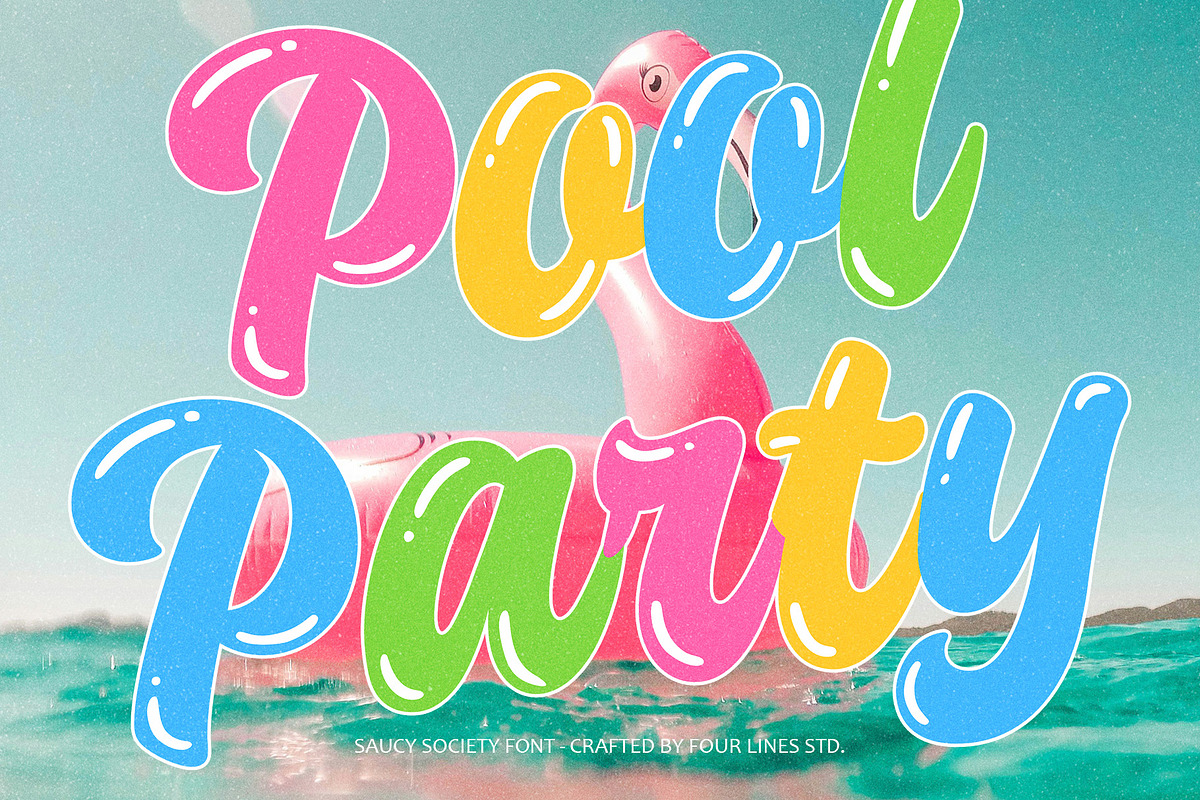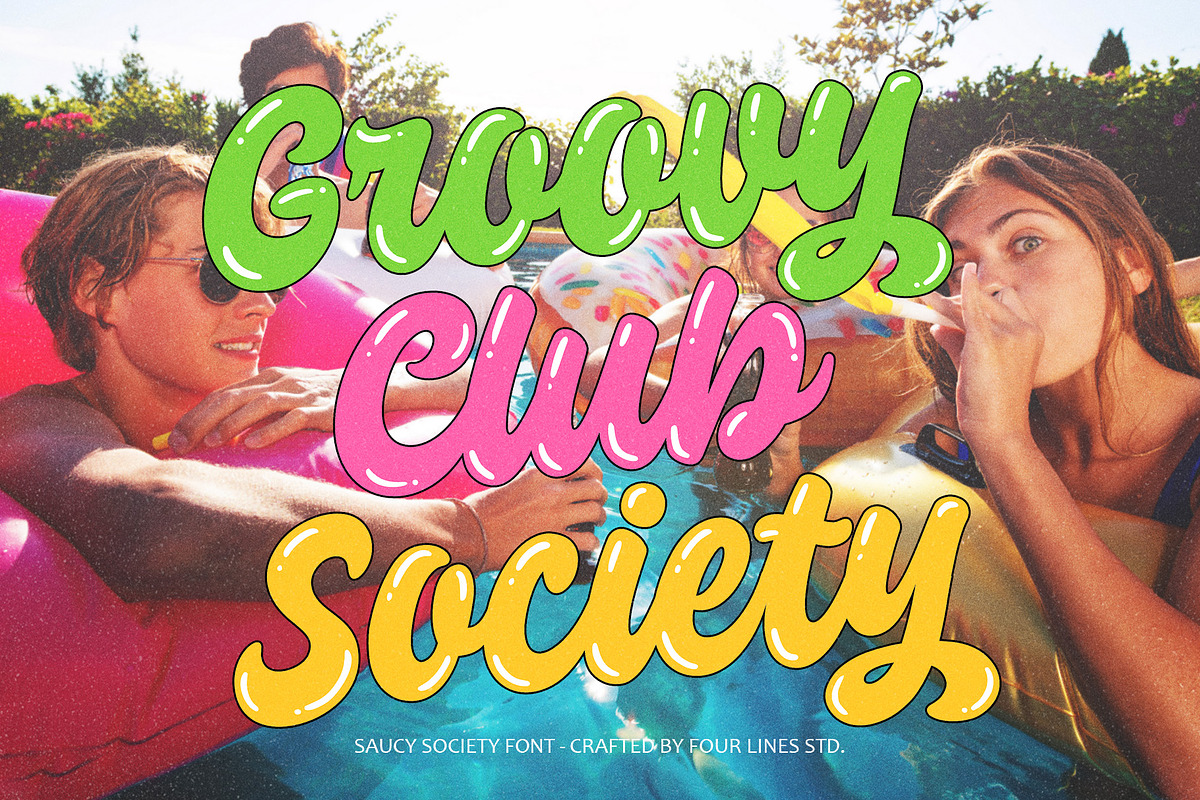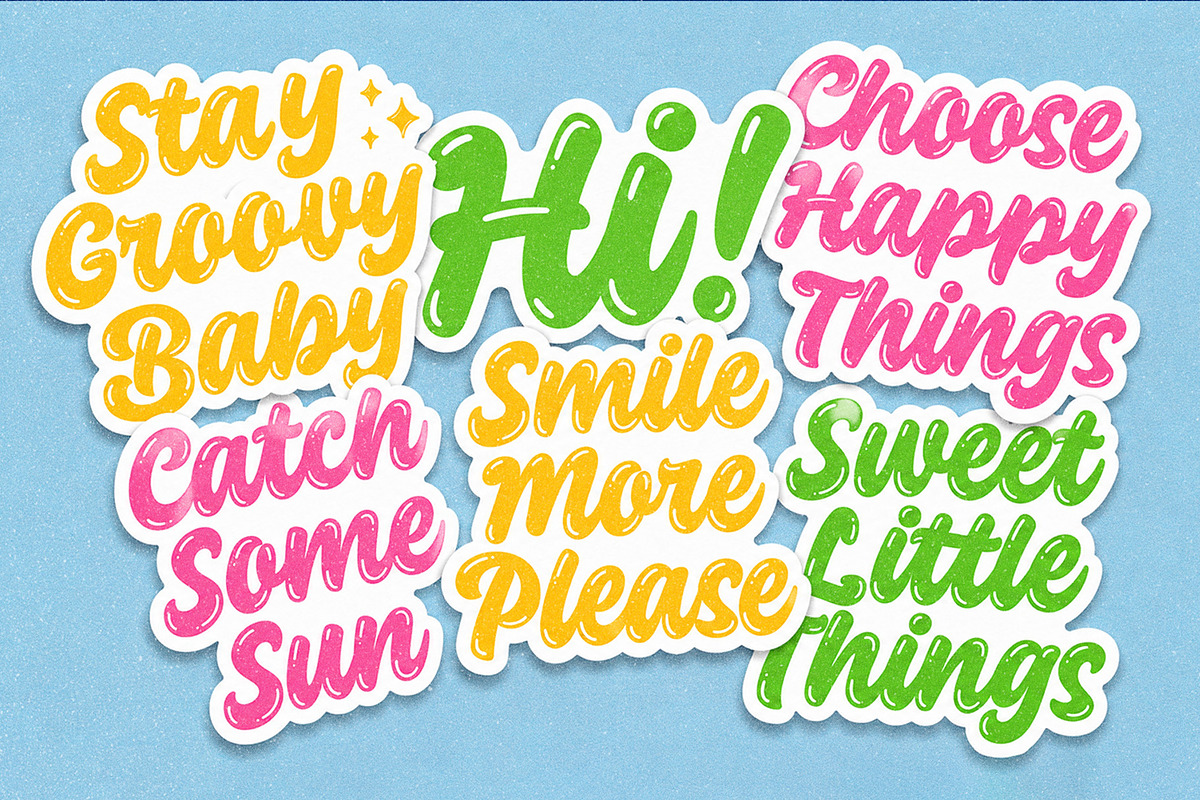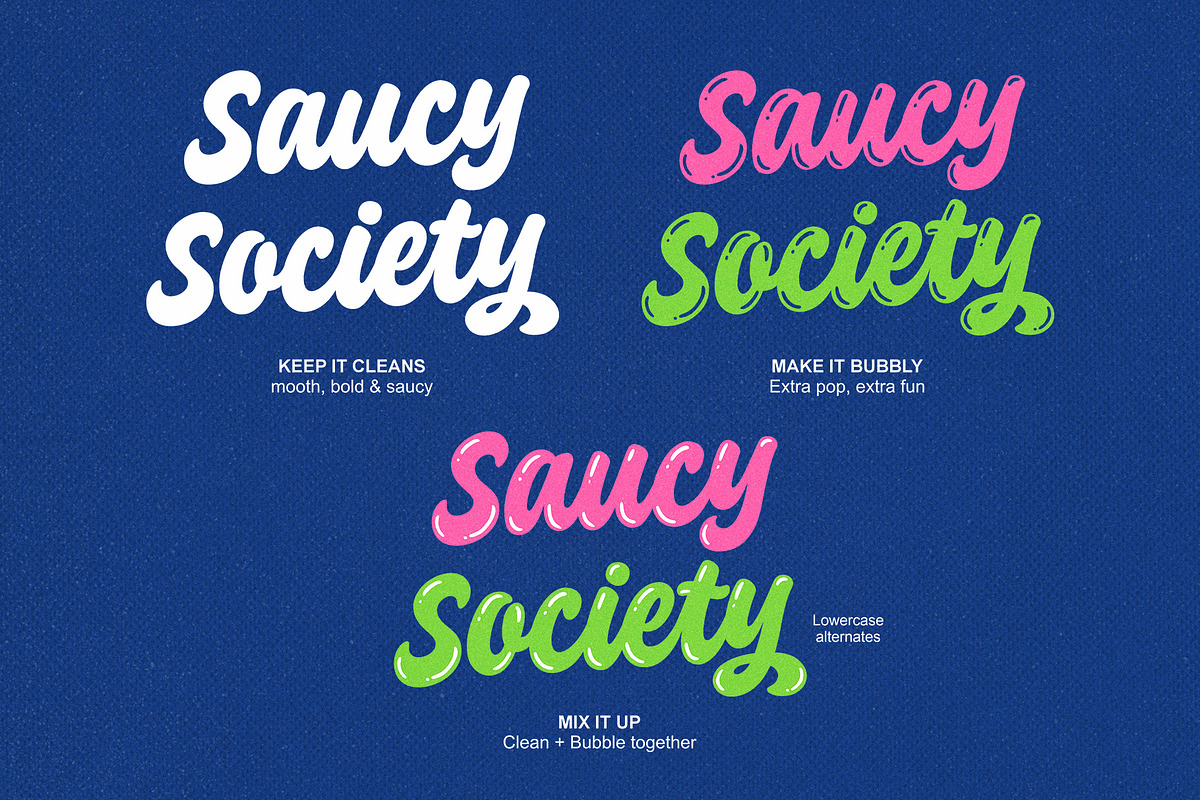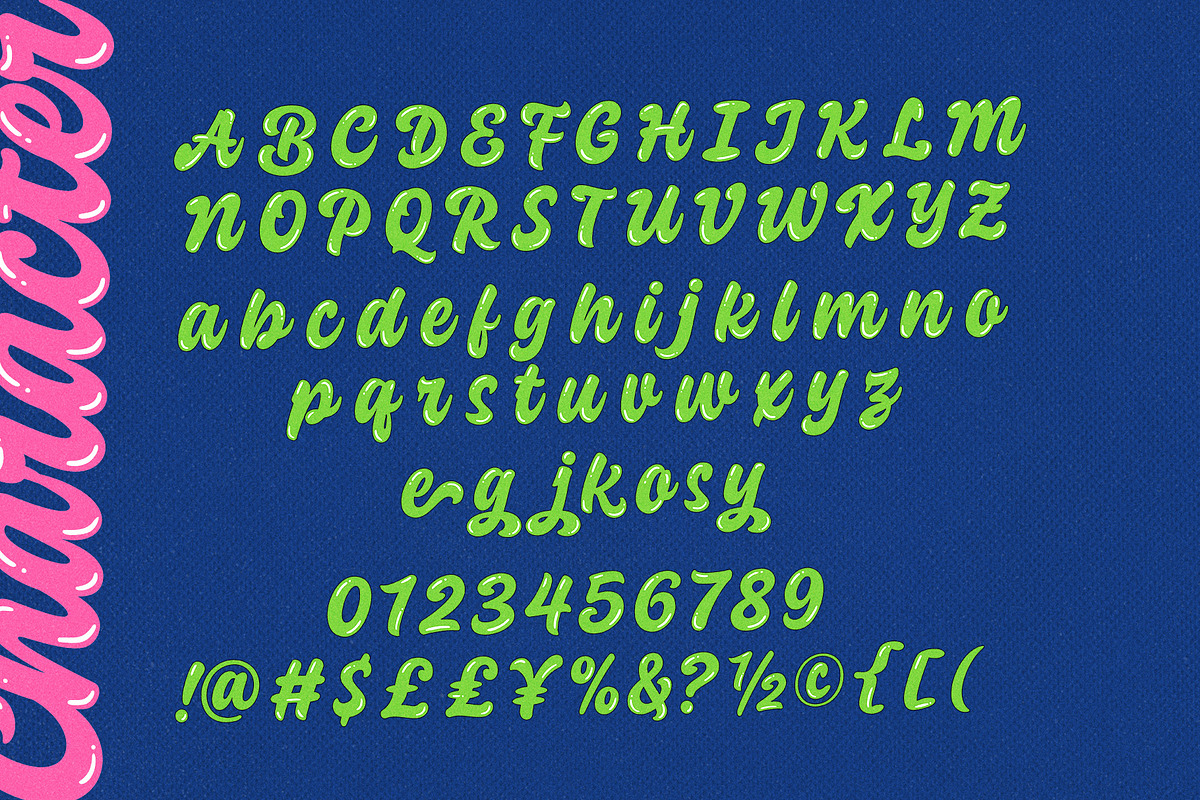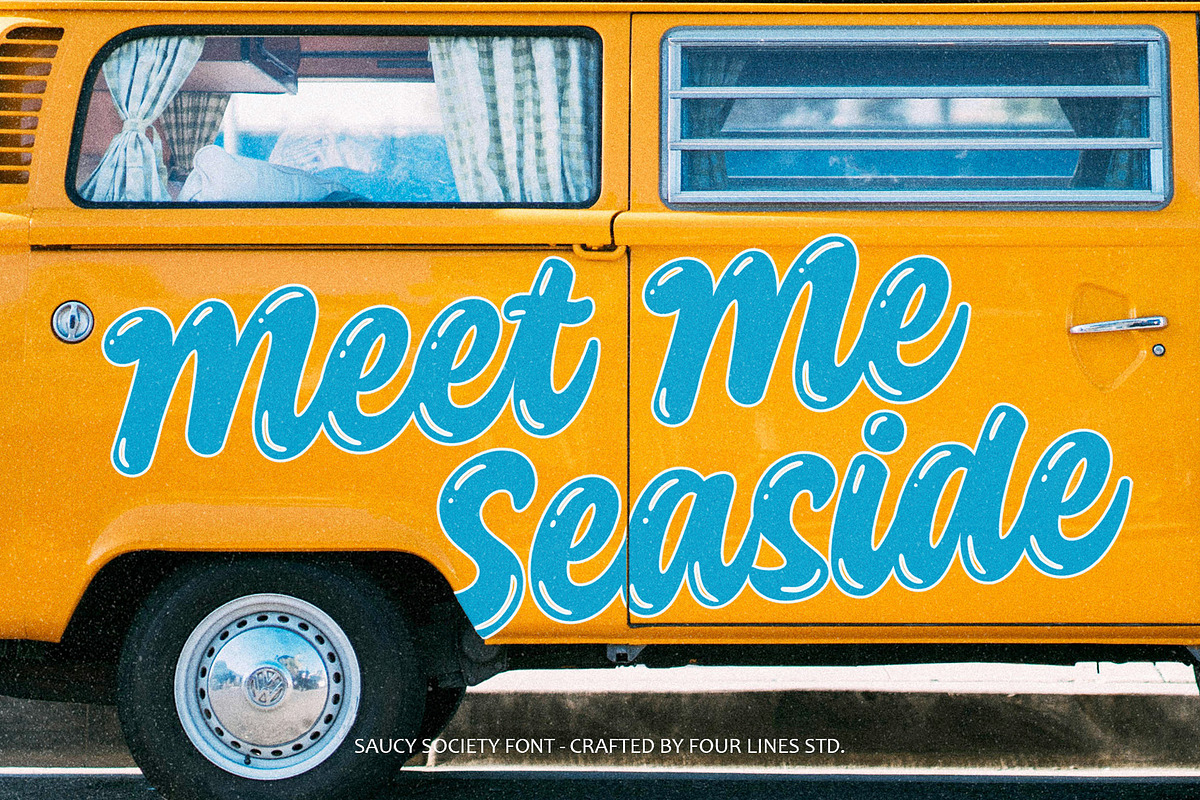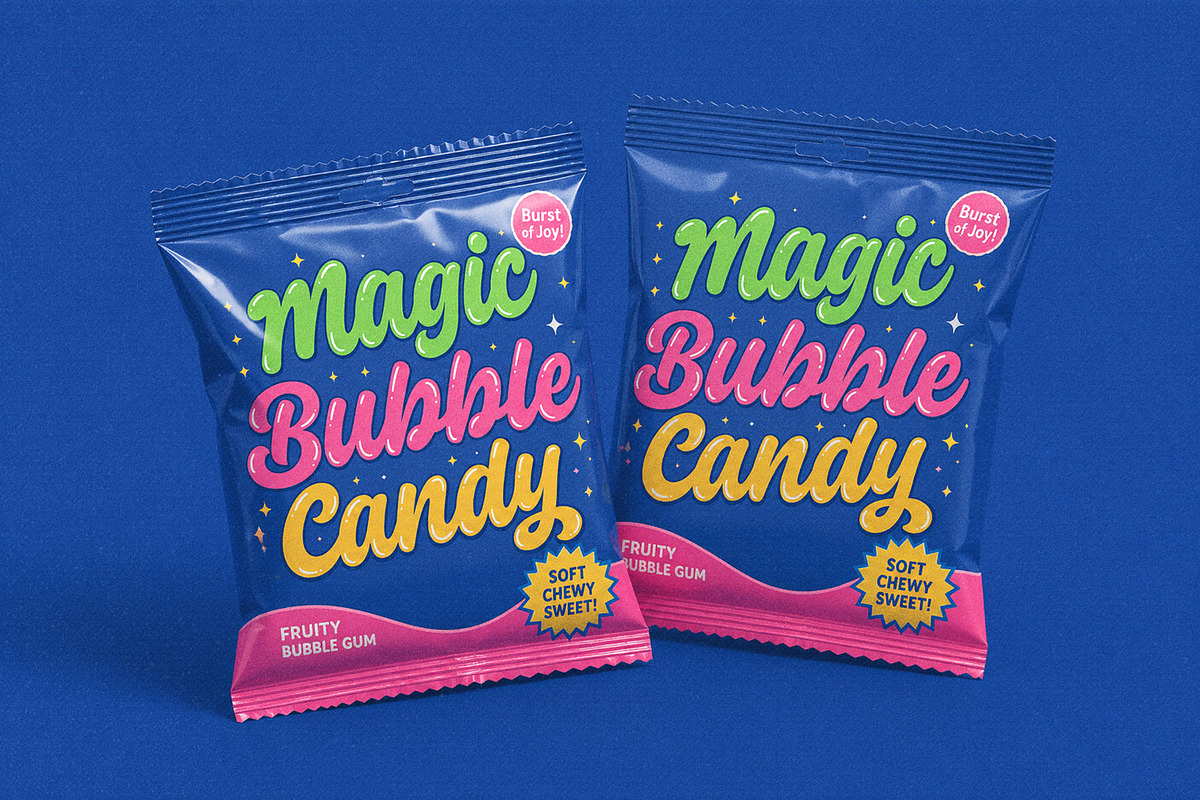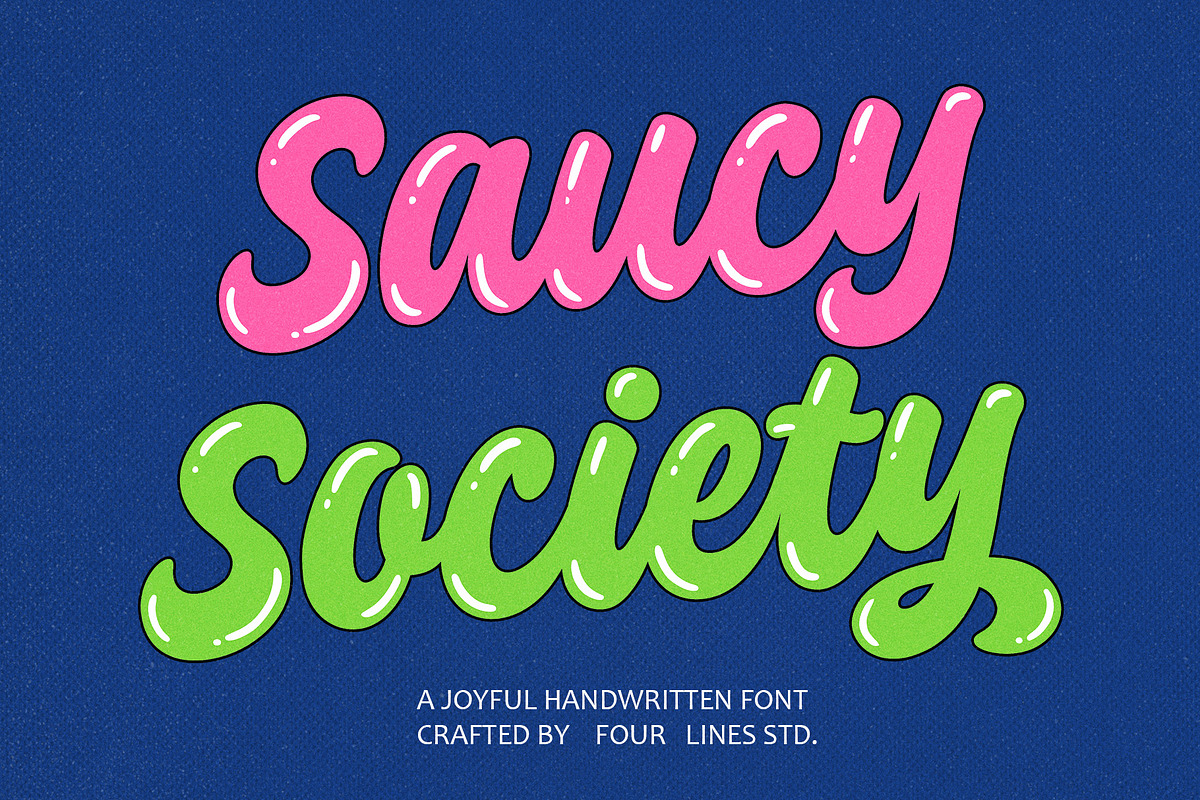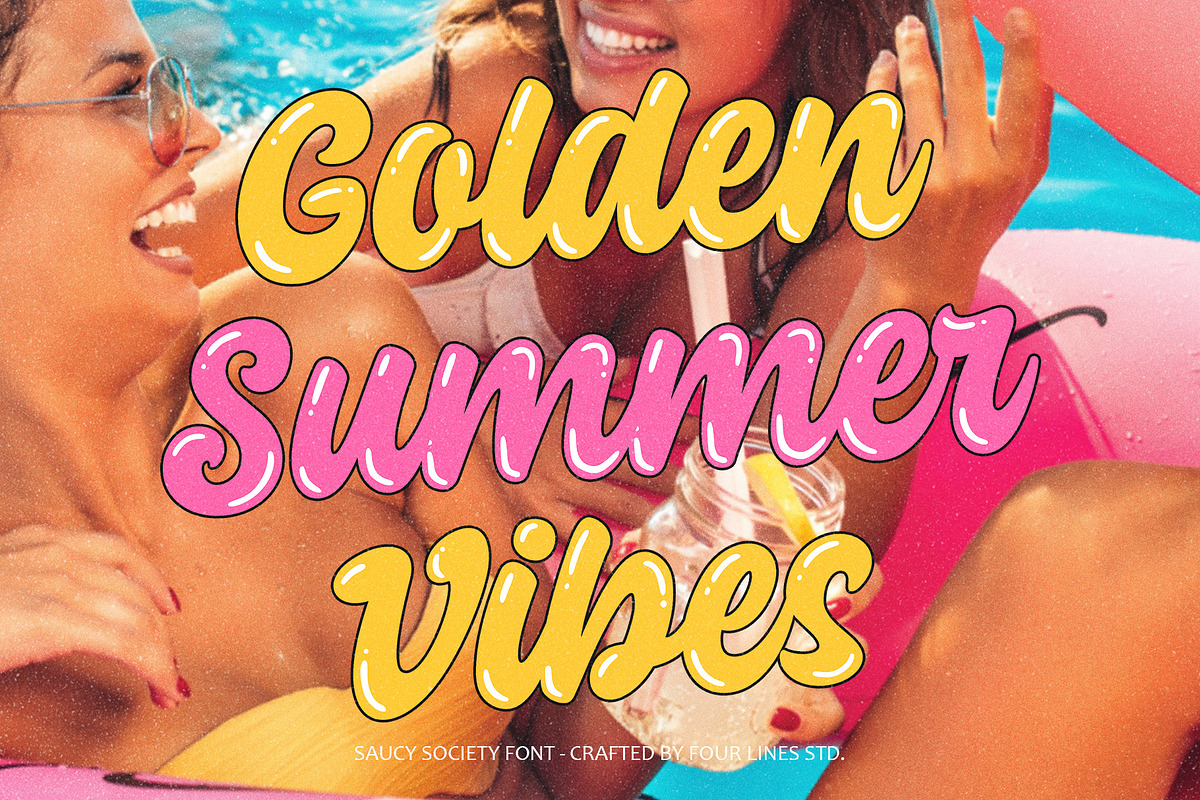
Saucy Society: A joyful font script
Meet Saucy Society, a joyful handwritten font filled with playful curves, bold strokes, and expressive character.
Saucy Society comes in two complementary styles: Clean & Bubble. Use the Clean version for a smooth and bold look, switch to Bubble for an extra playful touch, or mix them together to create lettering that feels even more lively and expressive. Lowercase alternates are also included, giving you more ways to play around with words and headlines.
Perfect for branding, product packaging, posters, stickers, merchandise, social media, and all kinds of display typography that could use a little more fun and personality.